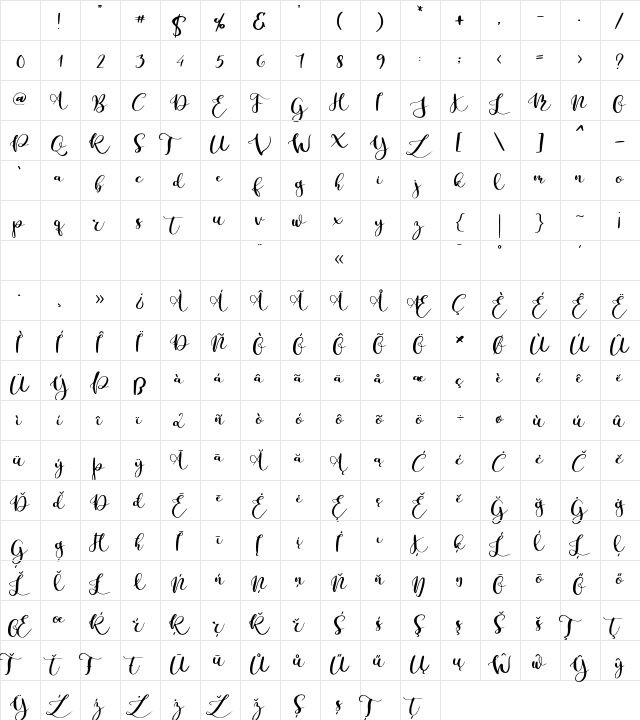
Parabellum is a composed and adaptable typeface that performs quietly and consistently across a wide range of design contexts.
Pro Tip: Use Parabellum in both headline and body roles to test its range before committing to a single application.